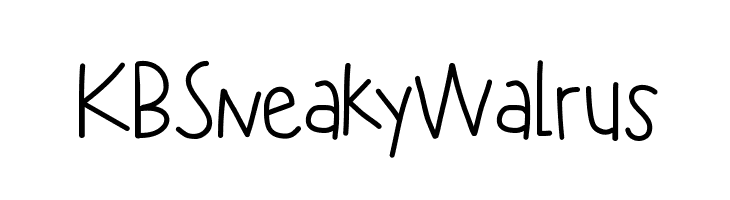
An ornate, decorative font with elaborate swirls and a calligraphic style.
A bold, distressed font with a grunge texture and tight spacing.
A playful, handwritten font with a casual and friendly style.
A bold, distressed font with a rugged, brushstroke appearance.
A playful and casual handwritten font with smooth, rounded curves.
A decorative font with flowing, ribbon-like strokes and dynamic elegance.